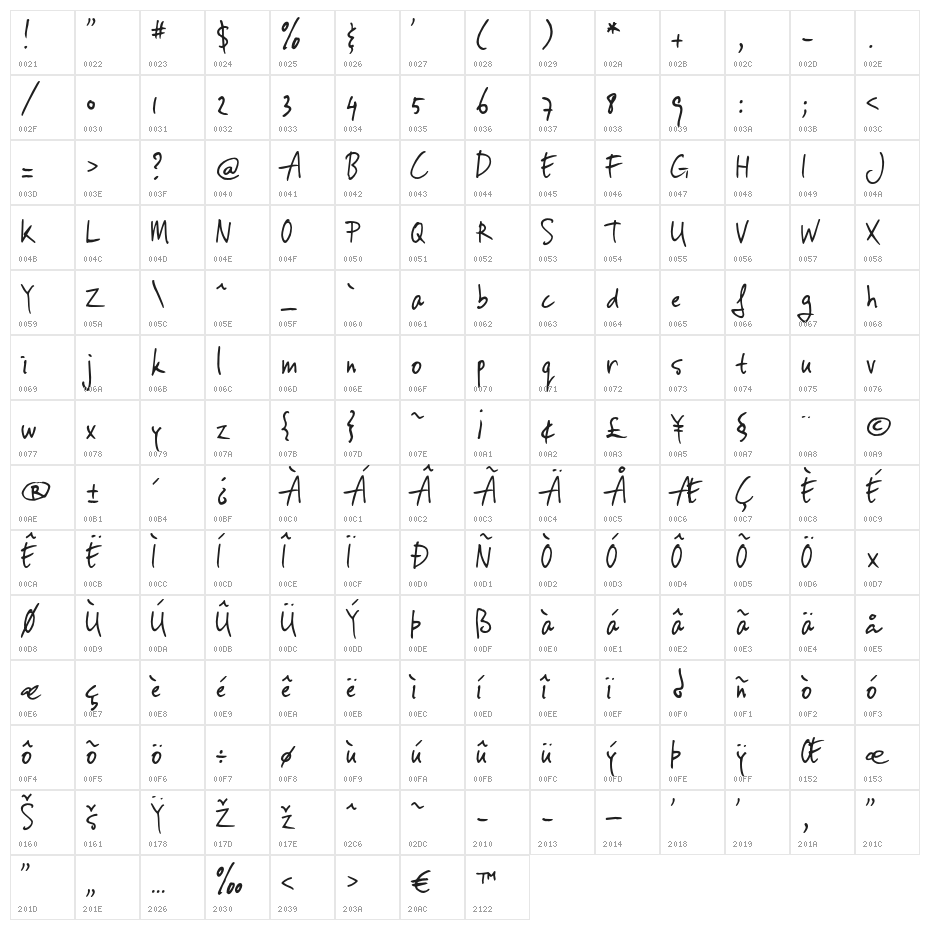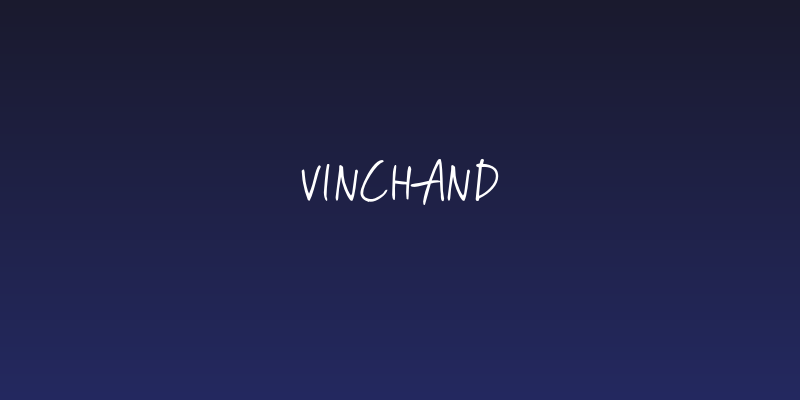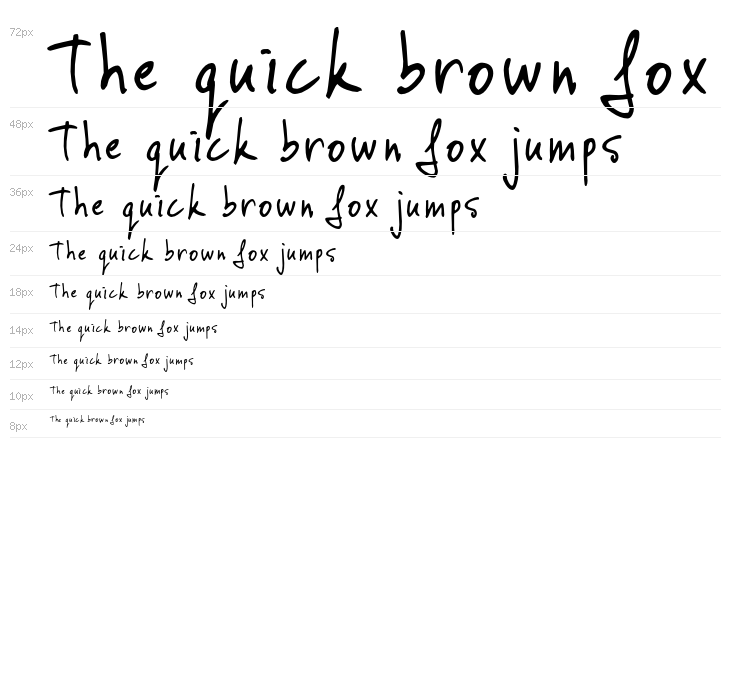
VincHand Font
VincHand Description
This font features a lively and dynamic handwritten style, characterized by its fluid and natural strokes. The uppercase letters are bold and slightly irregular, giving a sense of spontaneity and personal touch. The lowercase letters maintain a consistent flow, with some characters extending below the baseline, adding to the casual and informal appearance. The numerals are distinct and easy to read, while the special characters complement the overall playful aesthetic. This font exudes a sense of creativity and individuality, making it suitable for projects that require a personal or artistic flair.
| Overall Style | Casual, Artistic |
| Proposed Projects | Ideal for greeting cards, invitations, personal branding, and creative projects that require a personal touch. |